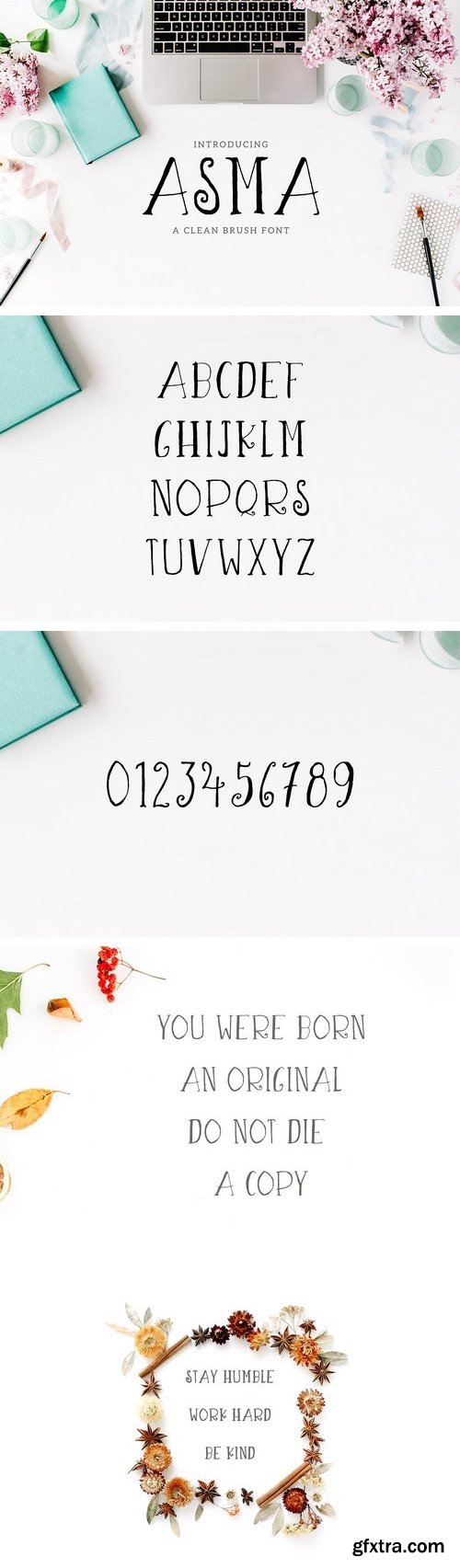
Asma Script Typeface is a beautiful handwritten font which contains 3 weight and that is specifically designed for minimal projects. It looks impressive for branding, websites, clean designs, logos, headlines, banners and templates etc. It is in uppercase style only.